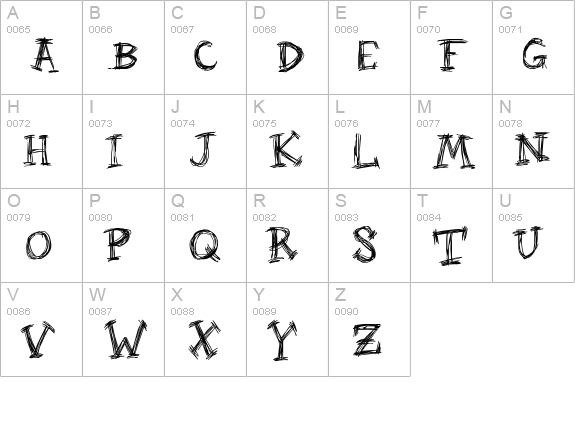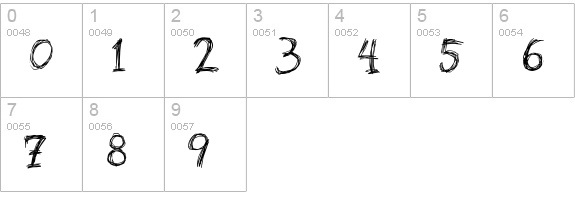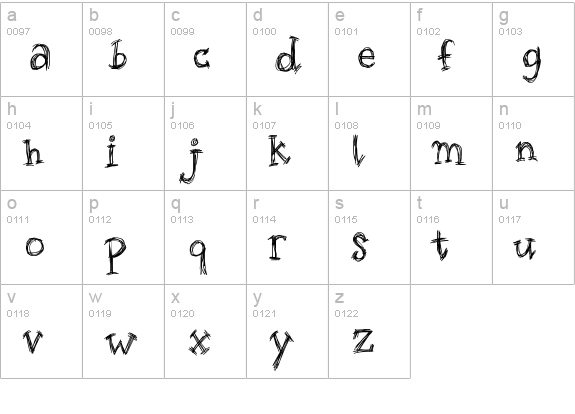
Roughage Serif Font Details
Roughage Serif font is a versatile typeface that exudes a rustic charm and timeless elegance. Its unique serifs and rugged edges give it a distinctive character that is perfect for adding a touch of sophistication to any design project. Whether used for headlines, body text, or graphic elements, Roughage Serif font commands attention and delivers a strong visual impact. This font is not only visually appealing but also highly legible, making it suitable for a wide range of applications. From branding and packaging to editorial design and web graphics, Roughage Serif font will elevate your projects to new heights. Best of all, Roughage Serif font is available for free download at FontsMarket.com. Take advantage of this opportunity to add this stunning typeface to your font collection and unleash your creativity with its endless possibilities. Download Roughage Serif font today and start designing with style and flair.